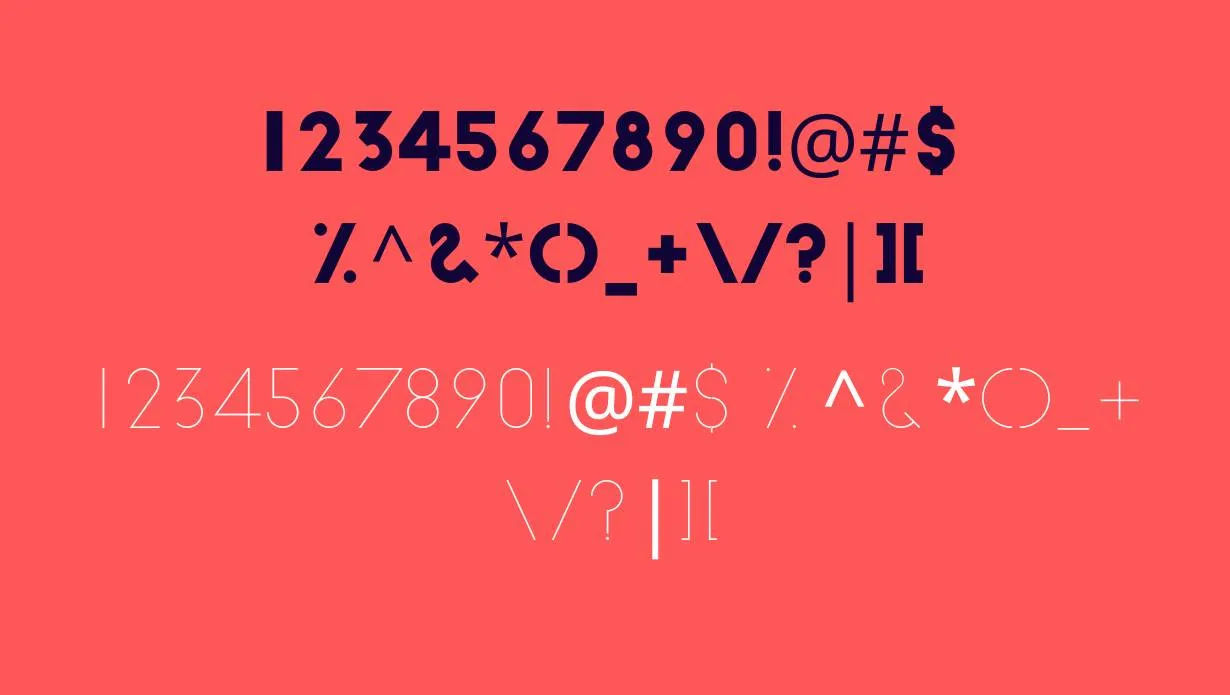
Big John Slim Joe Font, with its sleek and modern design, is a great choice for projects requiring a contemporary and well-organized look.
| Name | Big John Slim Joe Font |
| Designer | Ion Lucin |